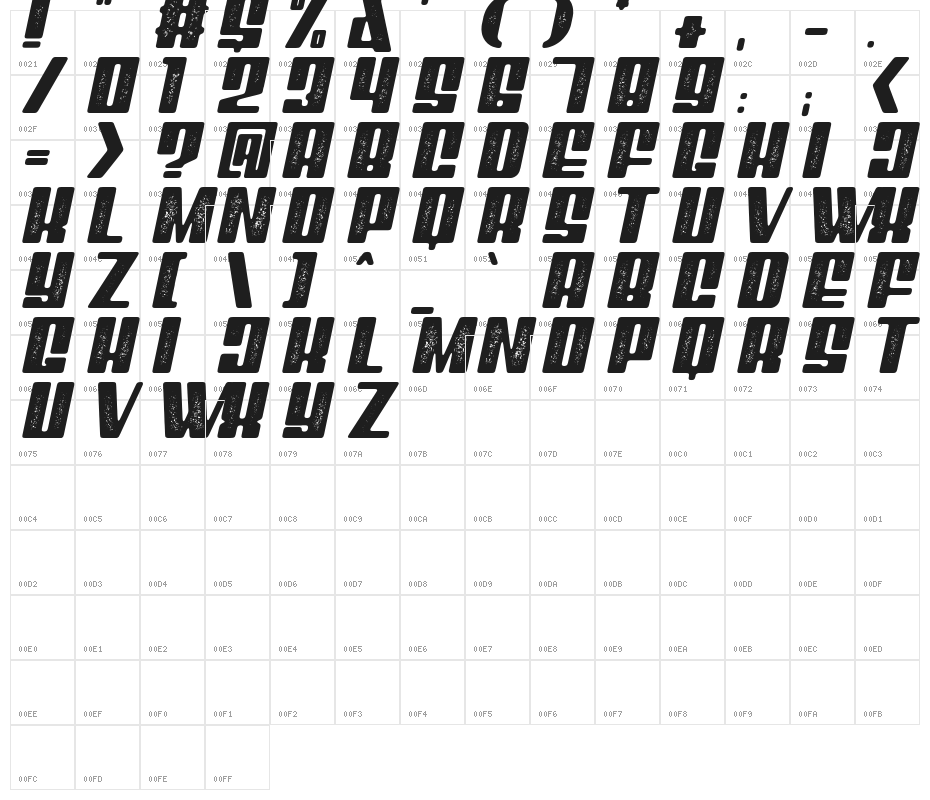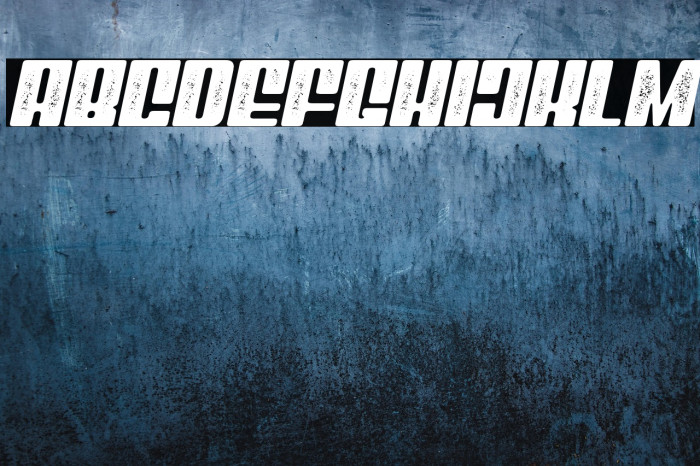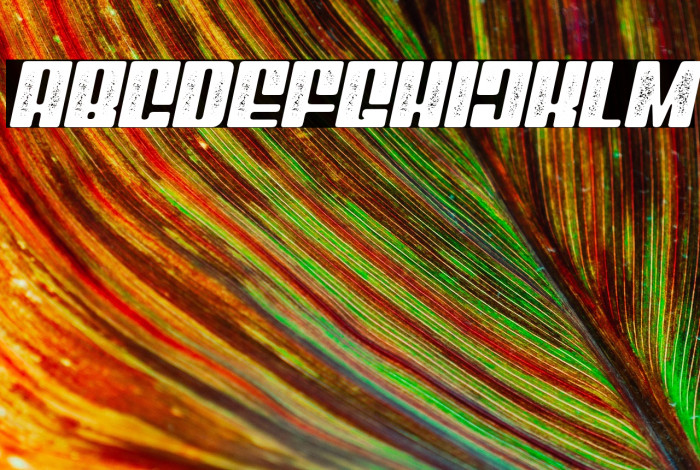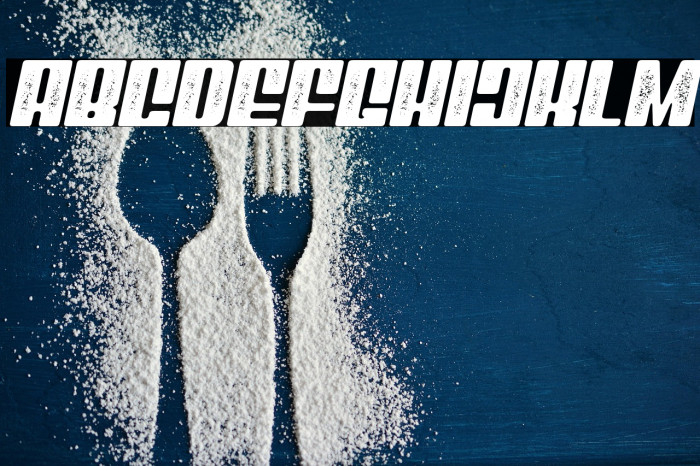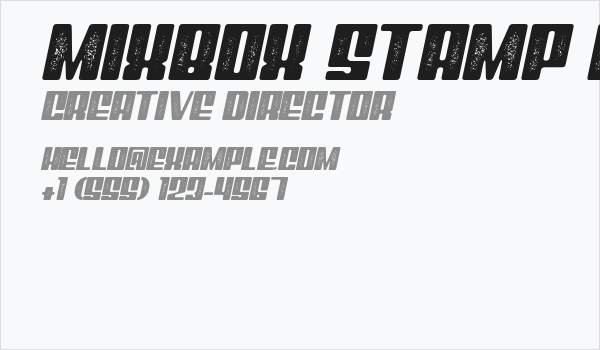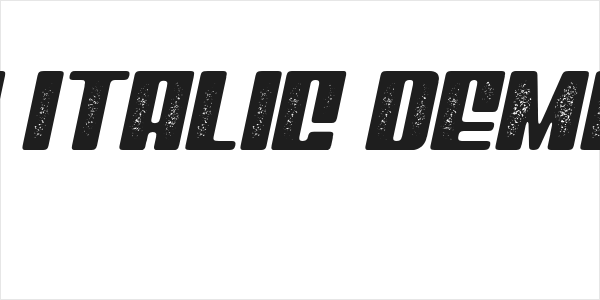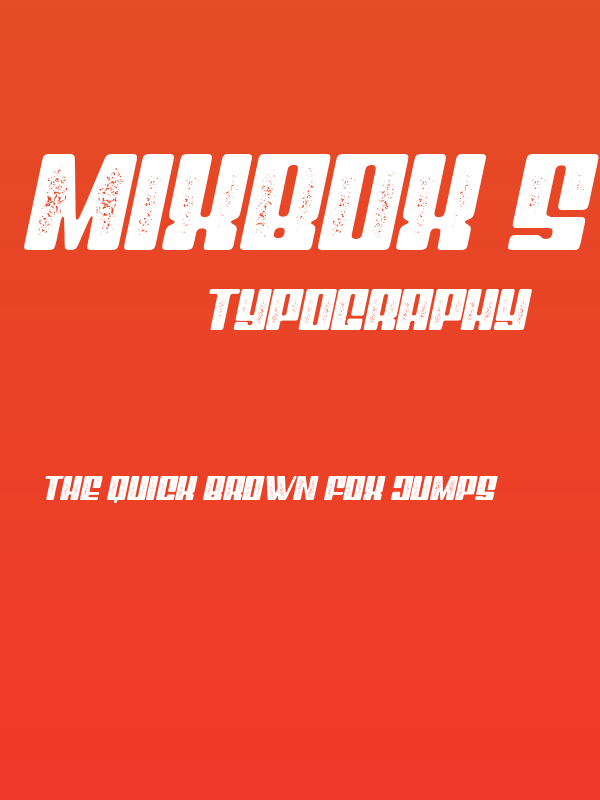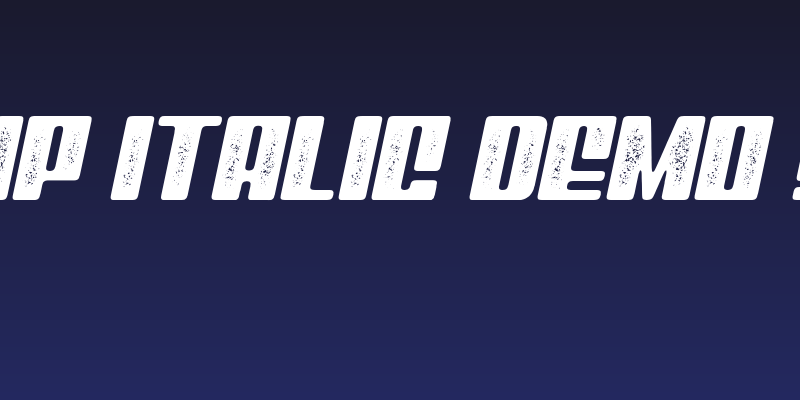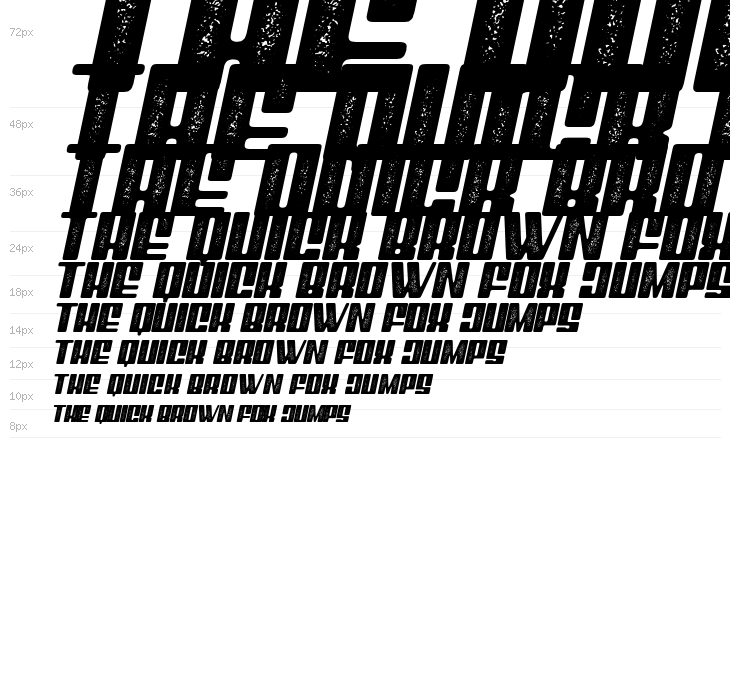
Mixbox Stamp Italic Demo Stamp Italic Font
Mixbox Stamp Italic Demo Stamp Italic Description
This font features a bold, italicized style with a distinct stamp-like texture. The characters are blocky and robust, with a distressed effect that gives them a rugged, industrial appearance. The uppercase and lowercase letters maintain a consistent width, contributing to a uniform look across the text. The numbers and special characters share the same bold and textured style, ensuring cohesion throughout. This font's unique design makes it stand out, offering a vintage yet modern aesthetic that can be both eye-catching and functional.
| Overall Style | Vintage, Industrial |
| Proposed Projects | Ideal for branding, posters, and packaging design where a bold, industrial look is desired. |